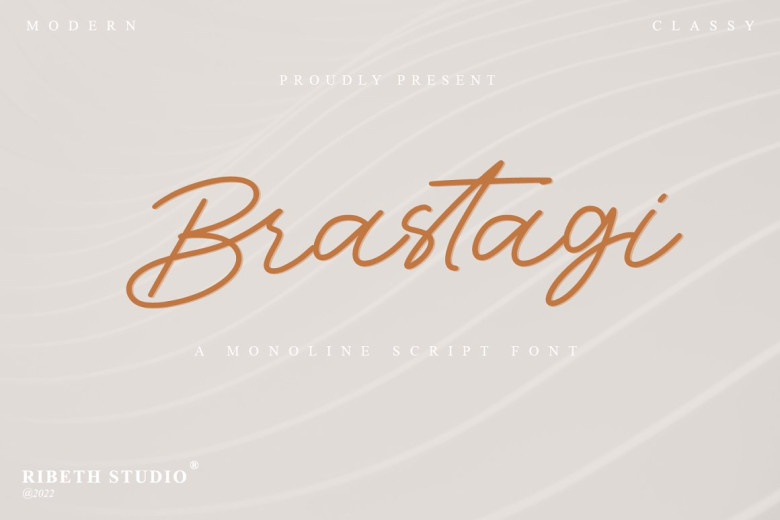
Brastagi Monoline Font
Brastagi is a single-line script font with an ink effect and natural flow, featuring many ligatures to add visual interest and make combination of letters more inviting. A handwritten font that appears elegant and beautiful.
Brastagi can be ideal for branding, logos wedding designs as well as social media posts, packaging of products advertisements labels, designs, photography as well as watermarks, stationary, invitations as well as any project which needs the impression of handwritten signature.
Brastagi Monoline Script Font